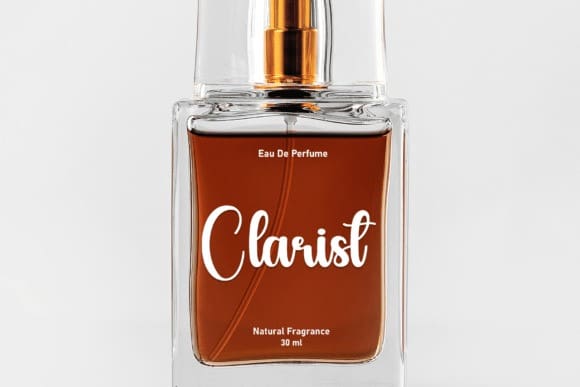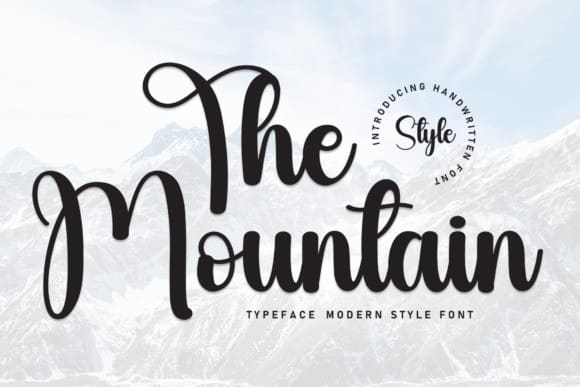
The Mountain Font
The Mountain Font is a sweet and friendly handwritten display font. Cute and fun, this font is ideal for writing wedding invitations, cards, or any other design that might need a fun touch!